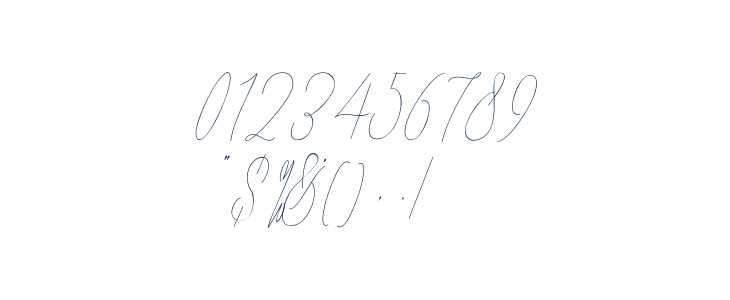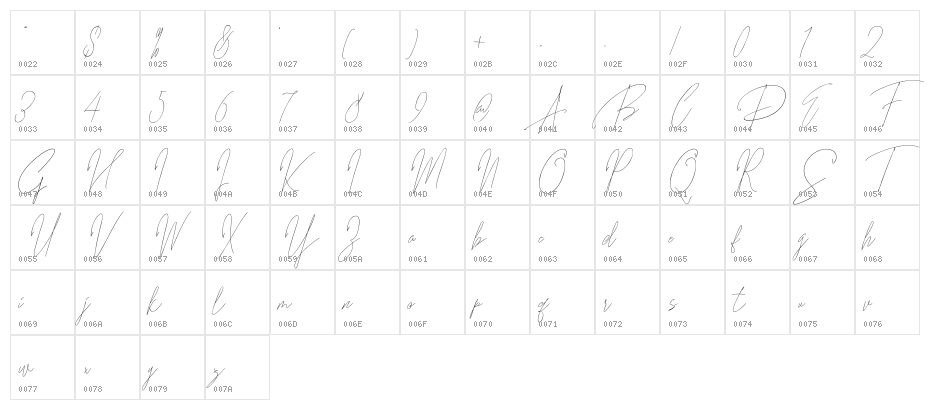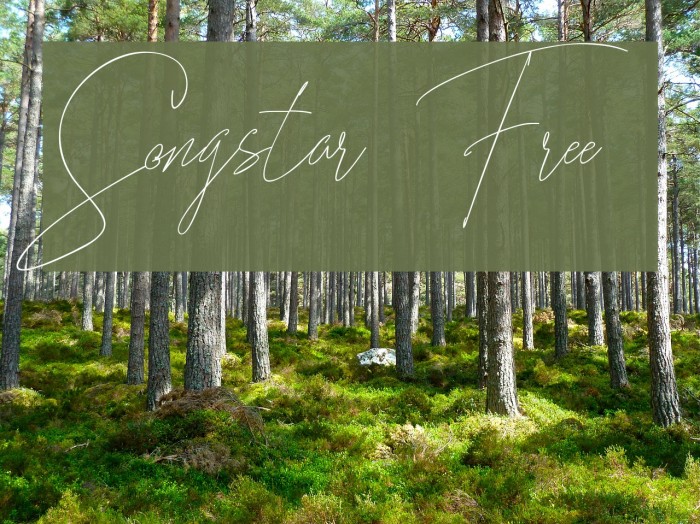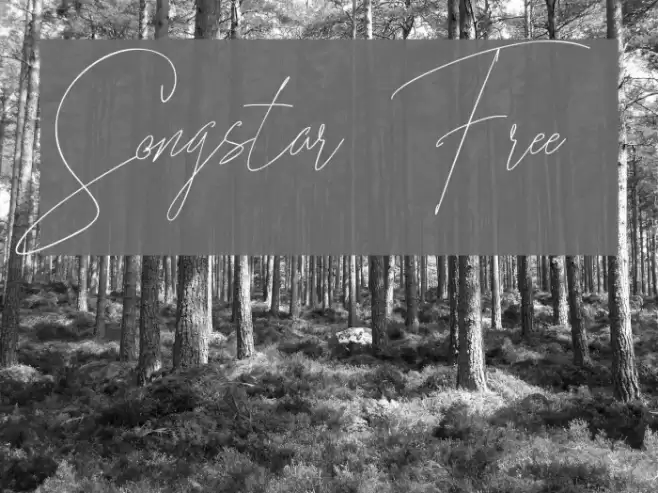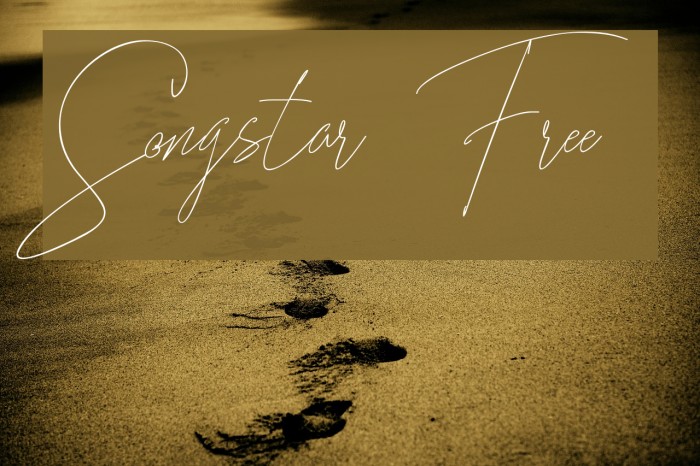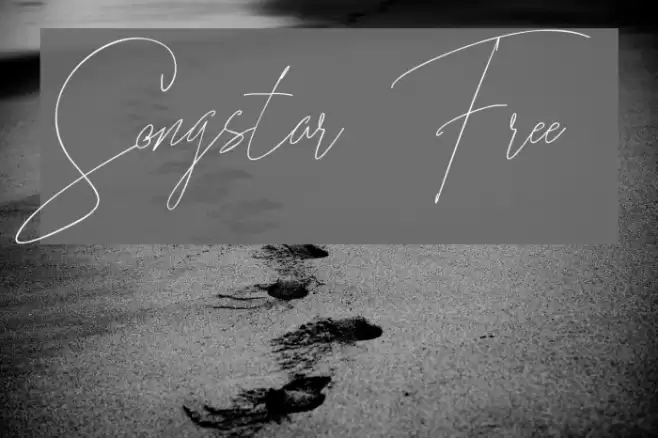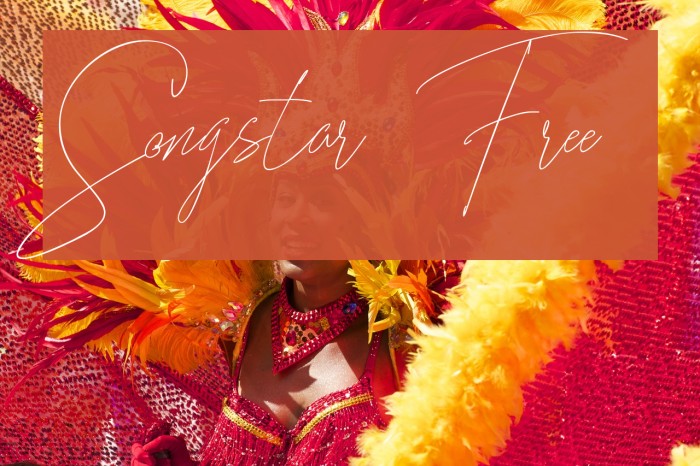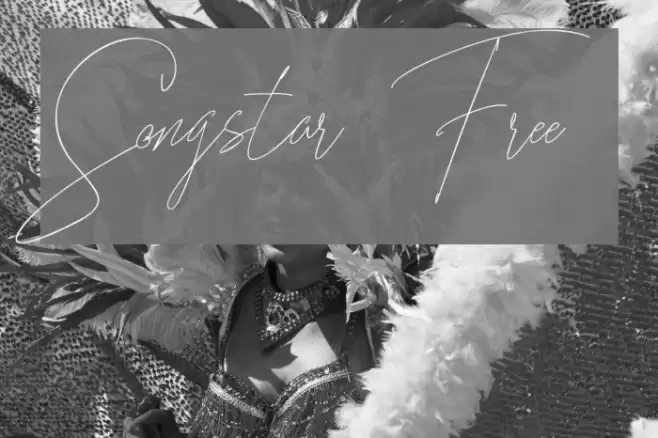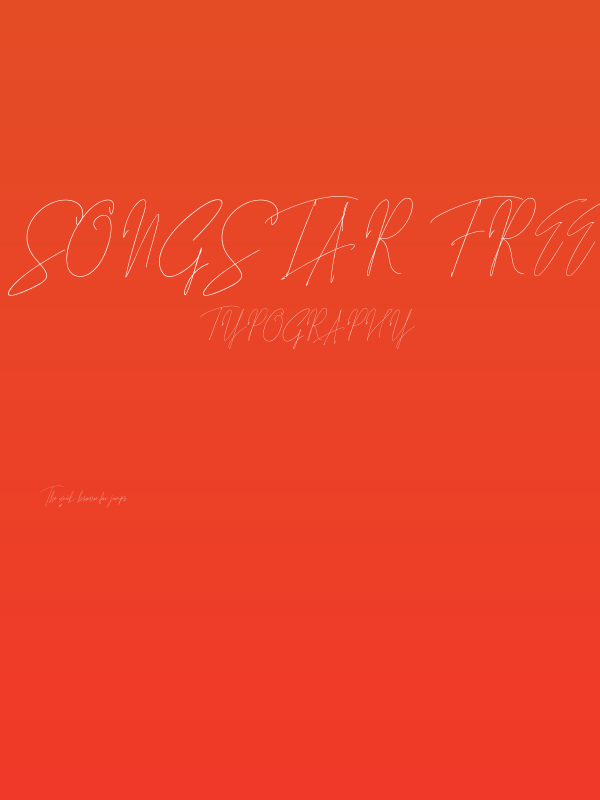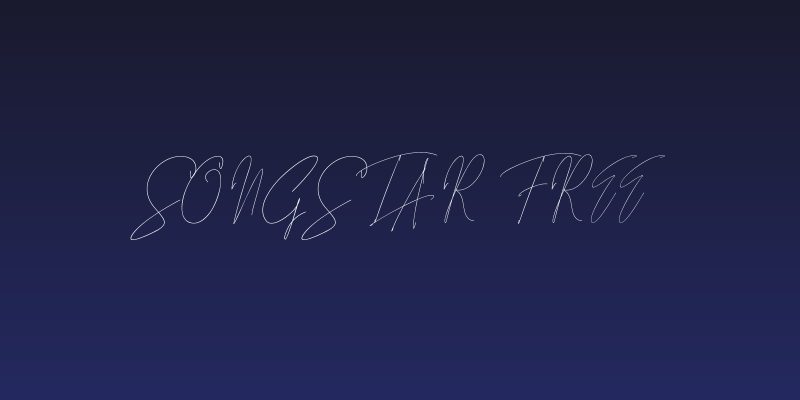
Songstar Free Font
Songstar Free Description
This font features an elegant and flowing script style, characterized by its thin, delicate strokes and graceful curves. The letters are connected in a fluid manner, giving it a handwritten appearance that exudes sophistication and charm. The uppercase letters are slightly more ornate, with extended ascenders and descenders, while the lowercase letters maintain a consistent flow. The numerals and special characters are designed to match the overall aesthetic, ensuring a cohesive look across all elements. This font is perfect for projects that require a touch of elegance and personal flair.
| Proposed Projects | Ideal for wedding invitations, greeting cards, personal branding, and elegant logo designs. |